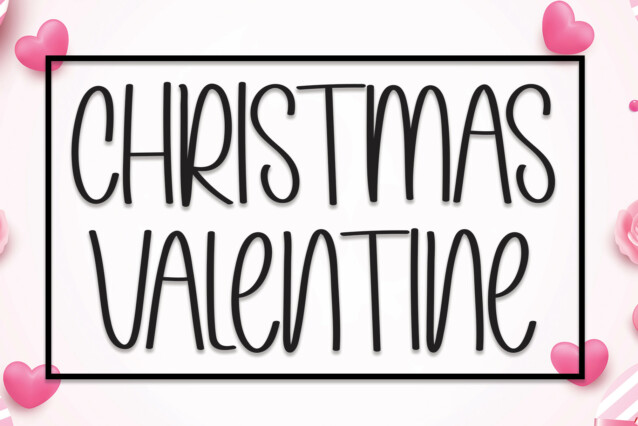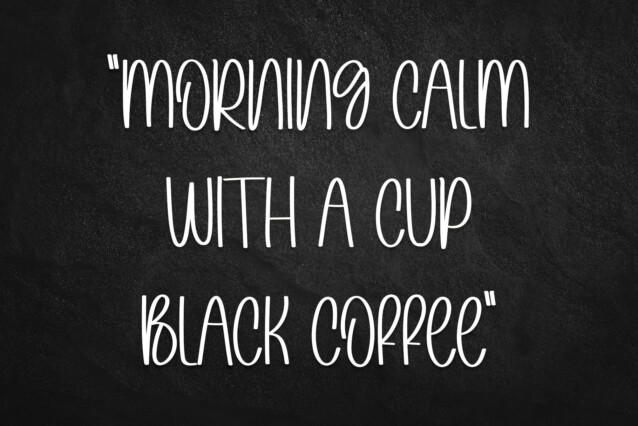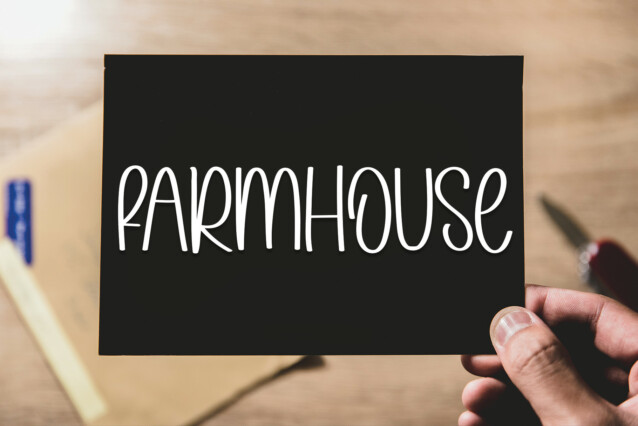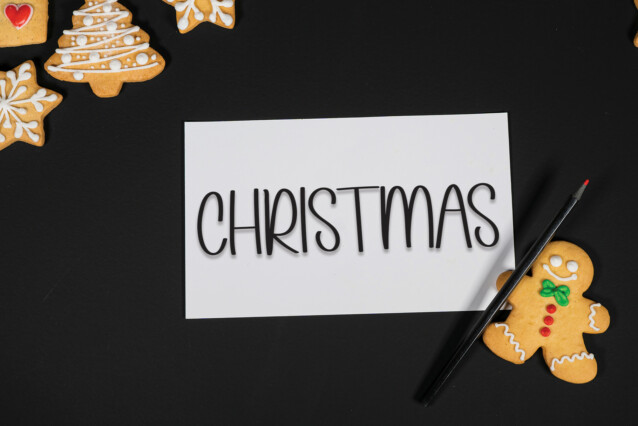
Christmas Valentine Display Font
Christmas Valentine’s latest style letters are perfect for wall displays, wedding invitations, social media post logos, advertisements, product packaging, product designs, labels, photography, watermarks, invitations, stationery, and any project that requires handwritten taste.